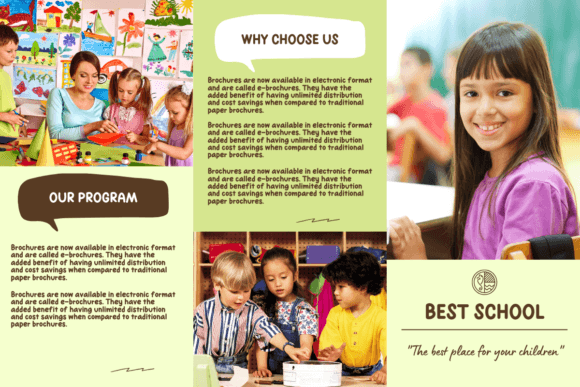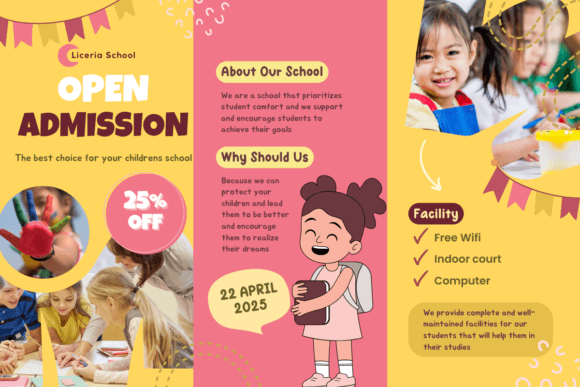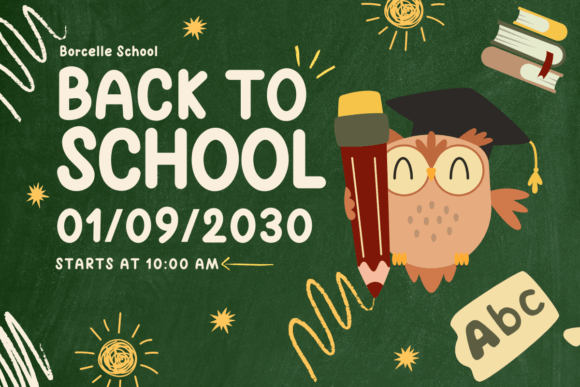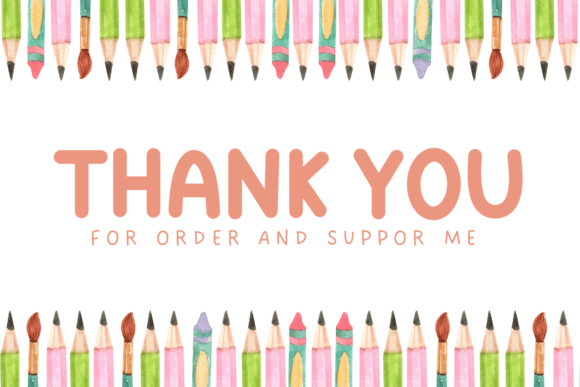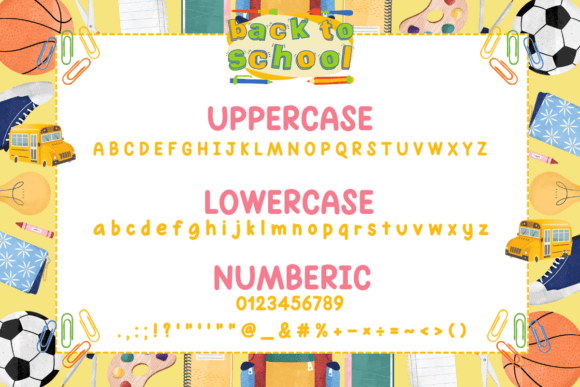
Getting Ready for a Creative New Year
As the summer sun begins to set, many of us start thinking about the upcoming school year. It’s a time for new notebooks, fresh pens, and a clean slate. For designers, it’s also a chance to refresh their creative toolbox with the perfect font to match the season.
Enter the Back to School Font, a charming handwritten font designed to capture the essence of a bygone era. This font is perfect for creating warm and inviting designs, from taking notes and writing a diary to making greeting cards and banners. Its versatility makes it an invaluable tool for designers looking to add a personal touch to their projects.
Whether you’re working on a social media campaign, designing stationery, or creating content for mugs and shirts, the Back to School Font is sure to bring a smile to your audience’s faces.
Key Features of Back to School Font
- Font Family: The font is part of the Back to School font family, which includes multiple styles and weights.
- Size: Available in a range of sizes, from 12pt to 72pt, making it suitable for various applications.
- Unique Characteristics: The font features a playful, handwritten style with a mix of cursive and print elements, making it perfect for educational and creative projects.
- Character Count: Includes a wide range of characters, including Latin, Greek, and Cyrillic alphabets, as well as punctuation and symbols.
Designer Review: Back to School Font
Overall, I think the “Back to School Font” is a fun and playful addition to any educational design project. ✨ The font’s rounded edges and friendly feel make it perfect for creating welcoming and approachable content, such as school newsletters or website headers.
The font’s versatility also shines in its ability to be used for a wide range of educational contexts, from elementary school to college. It’s a great option for creating visually appealing posters, flyers, or social media graphics.
- ✨ Friendly and approachable feel, perfect for educational content.
- ✨ Versatile and suitable for a wide range of educational contexts.
- ✨ Easy to read and understand, even in smaller font sizes.
- ⚠️ The font may not be suitable for more formal or professional educational contexts, such as academic journals or research papers.
- ⚠️ The font’s rounded edges may make it difficult to read in certain font sizes or on certain backgrounds.
Overall, I think the “Back to School Font” is a great option for designers looking to create engaging and approachable educational content. While it may have some limitations, its versatility and friendly feel make it a great addition to any design project.
Getting the Most Out of the Back to School Font
For the best results, use the Back to School font in bold or italic styles to add emphasis to your text.
The Back to School font is ideal for:
- School project presentations
- Back to school newsletters
- Education-related social media graphics
Alternatives to “Back to School Font” for Designers
Comic Sans MS is a casual, cursive font often used in informal settings, such as blogs, newsletters, and social media. It is similar to Back to School Font in its playful, handwritten feel but lacks the nostalgic charm and is generally considered less sophisticated.
American Typewriter
American Typewriter is a vintage-inspired font that mimics the look of old typewriters. It is more formal than Back to School Font and is suitable for use in designs where a classic, retro feel is desired. While it shares some similarities with Back to School Font in its vintage aesthetic, it has a more polished and professional appearance.
Great Vibes is a script font with a relaxed, handwritten feel. It is often used in designs that require a casual, friendly tone, such as event invitations, menus, and signage. Compared to Back to School Font, Great Vibes has a more refined and elegant appearance, making it suitable for use in a wider range of designs.